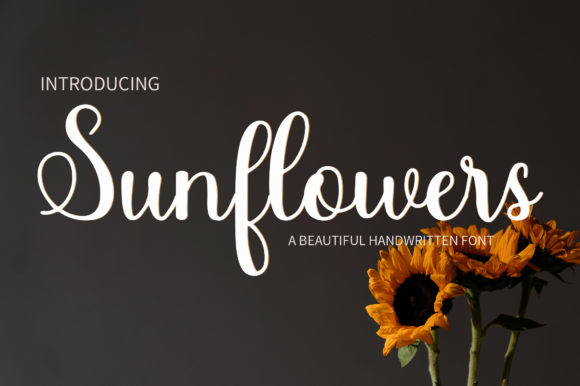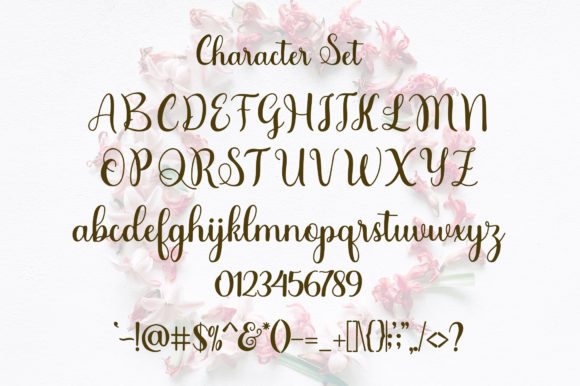
About Sunflowers Font
Sunflowers is a beautiful handwritten font. Simple and easy to use, this font will be a wonderful choice for wedding invitations, luxurious business cards, personal branding, and more creative projects!